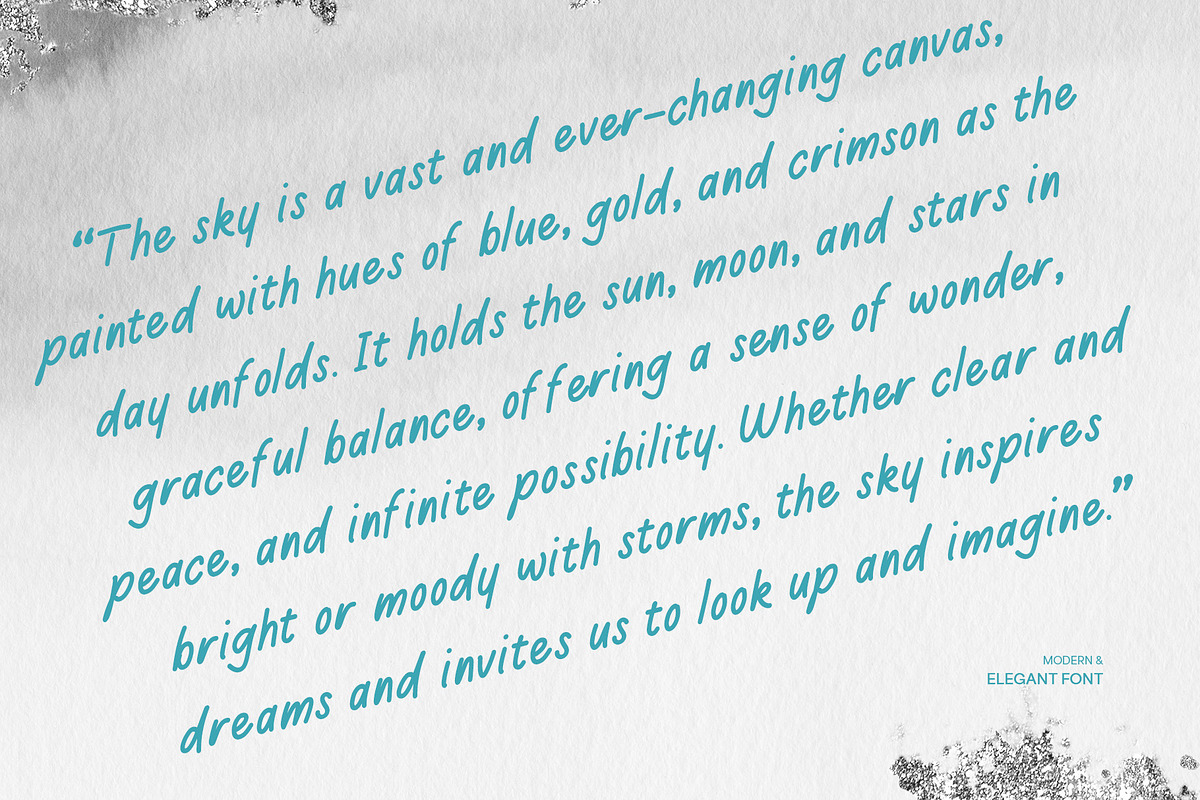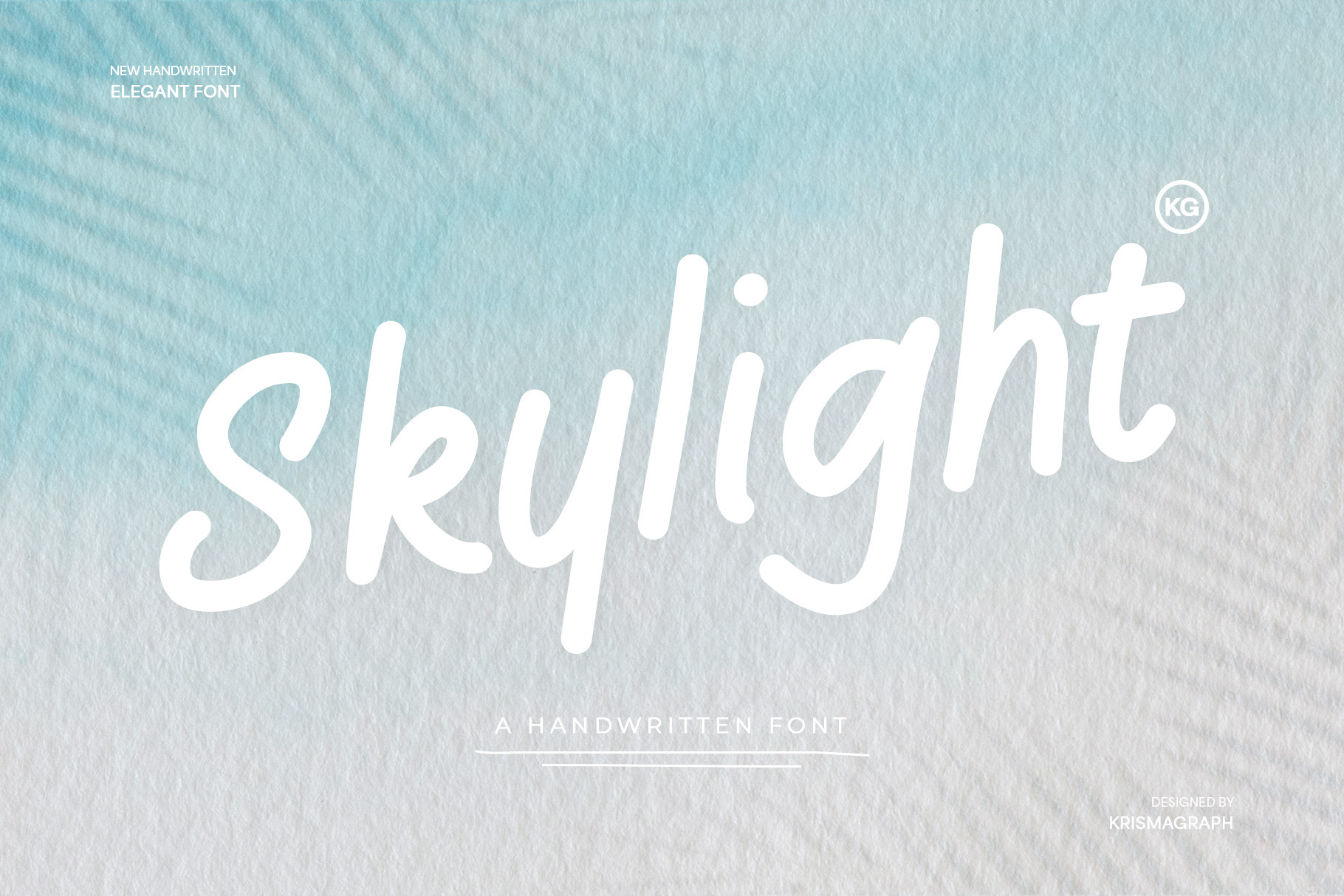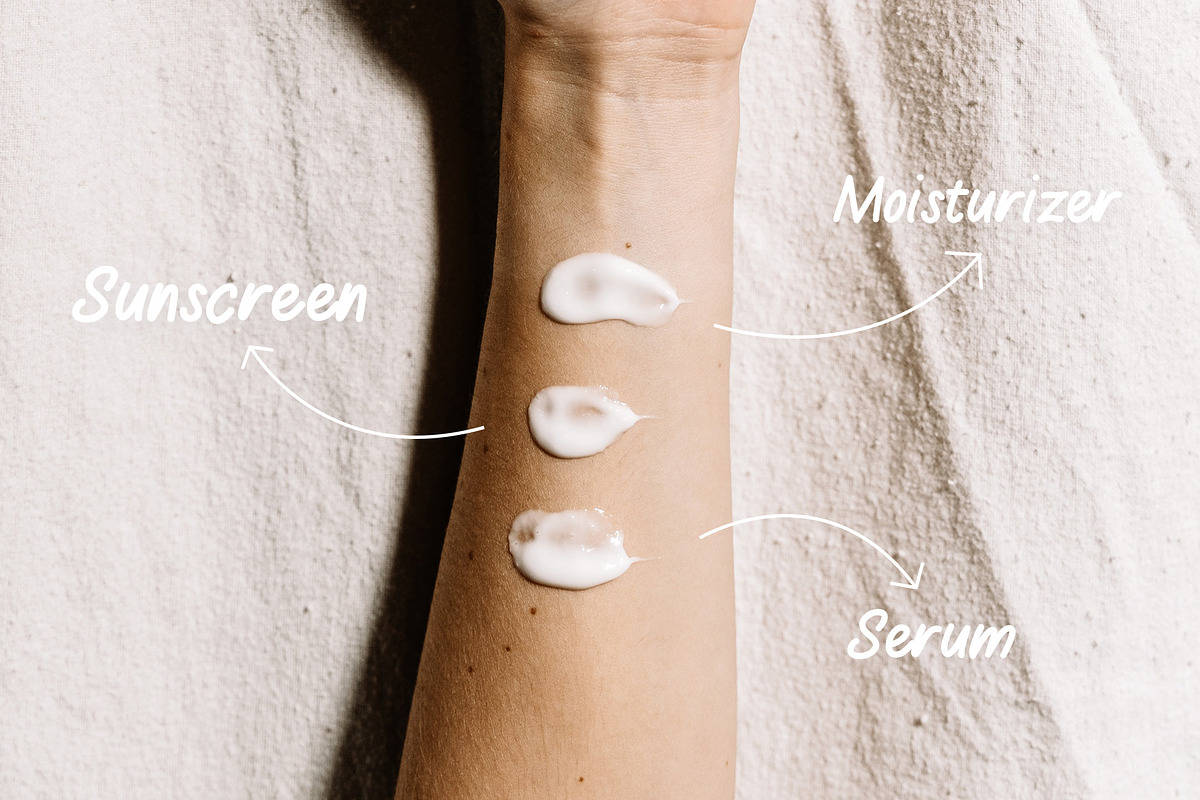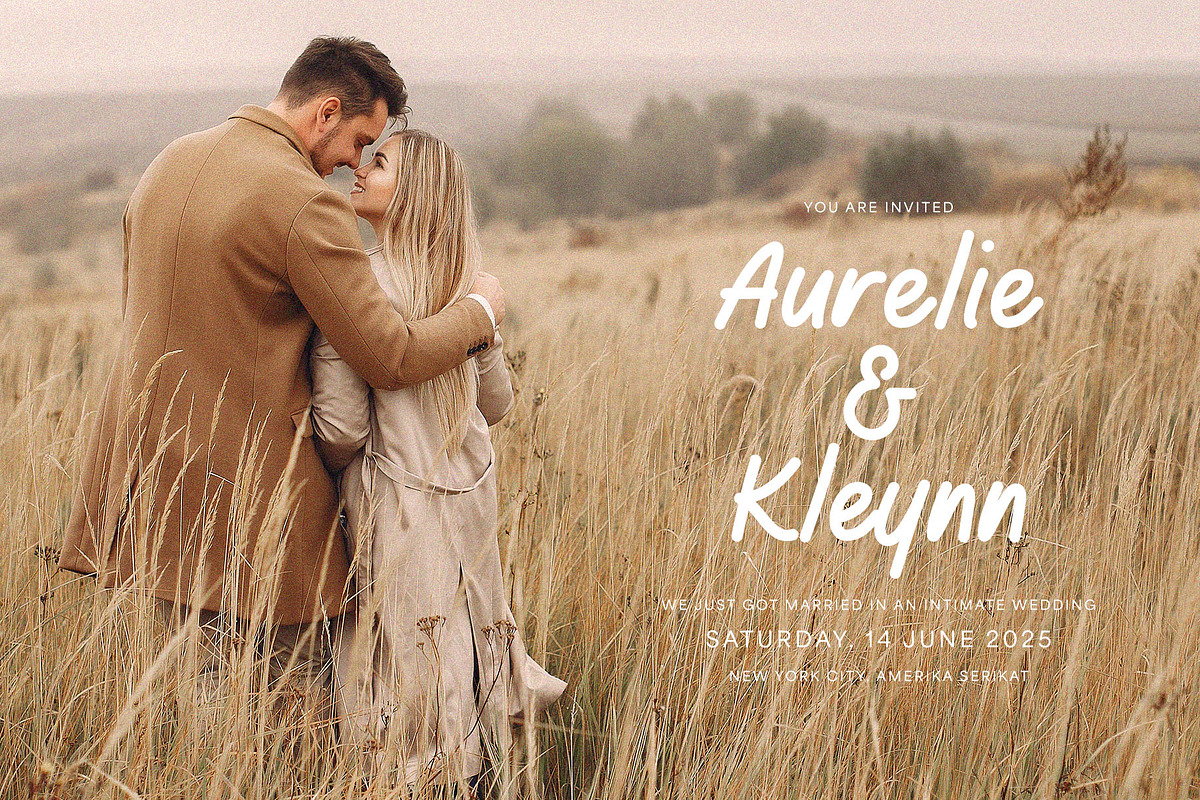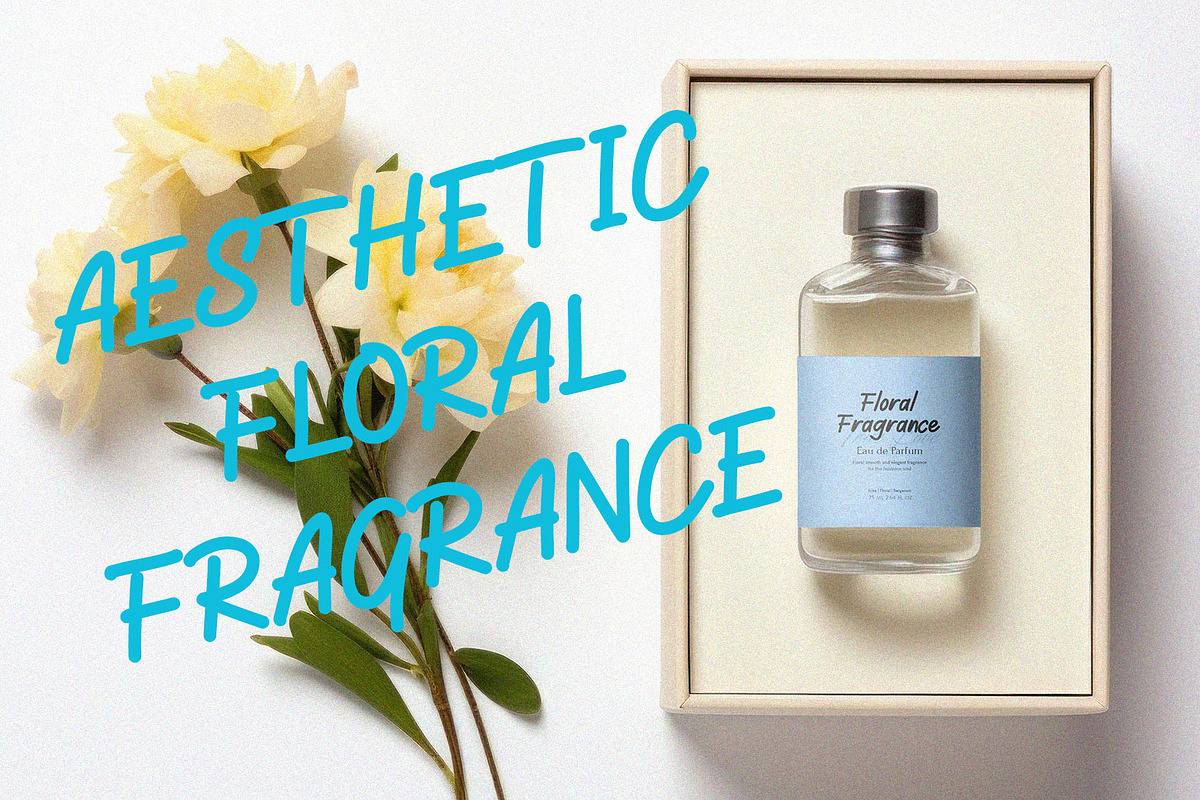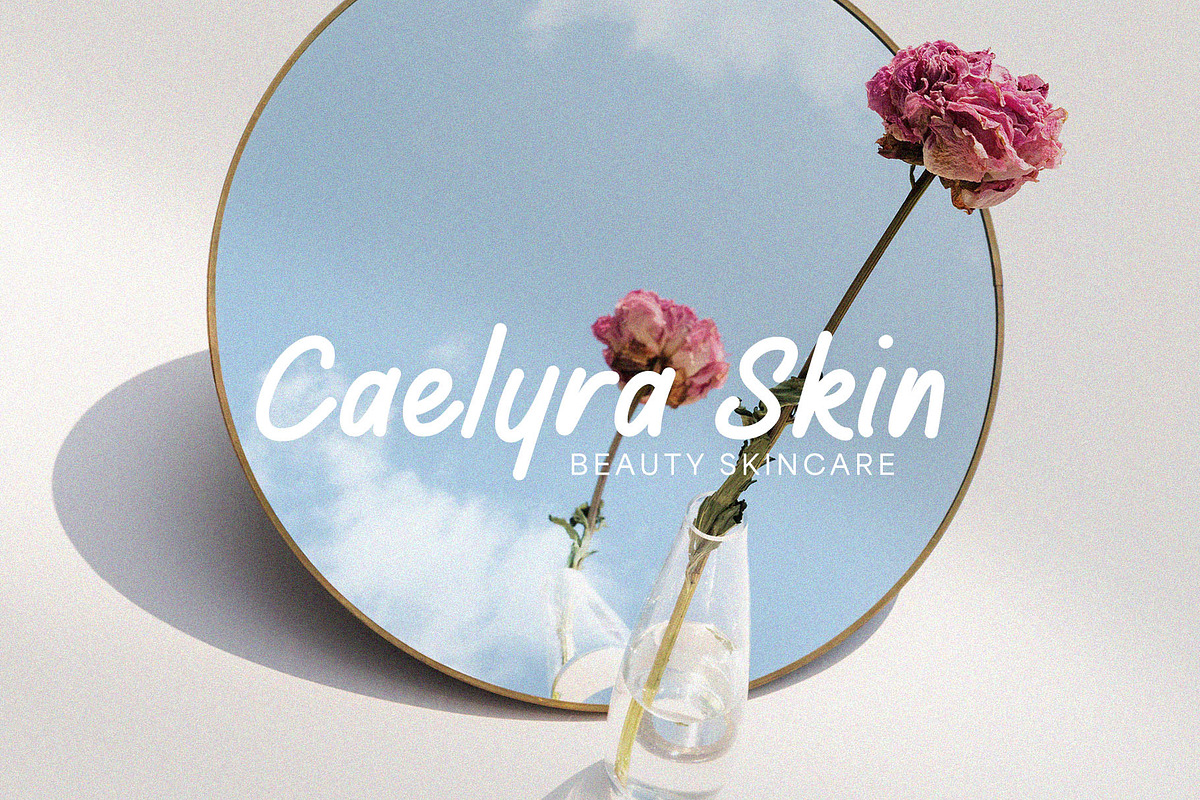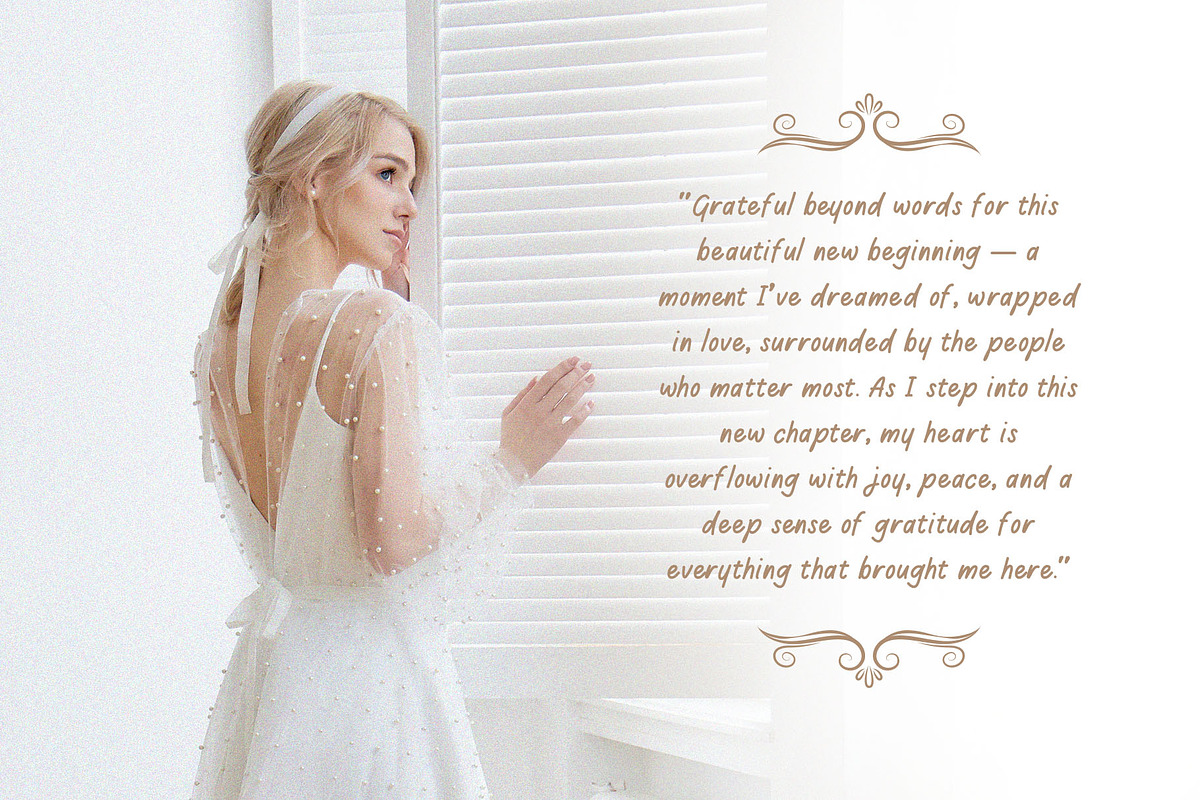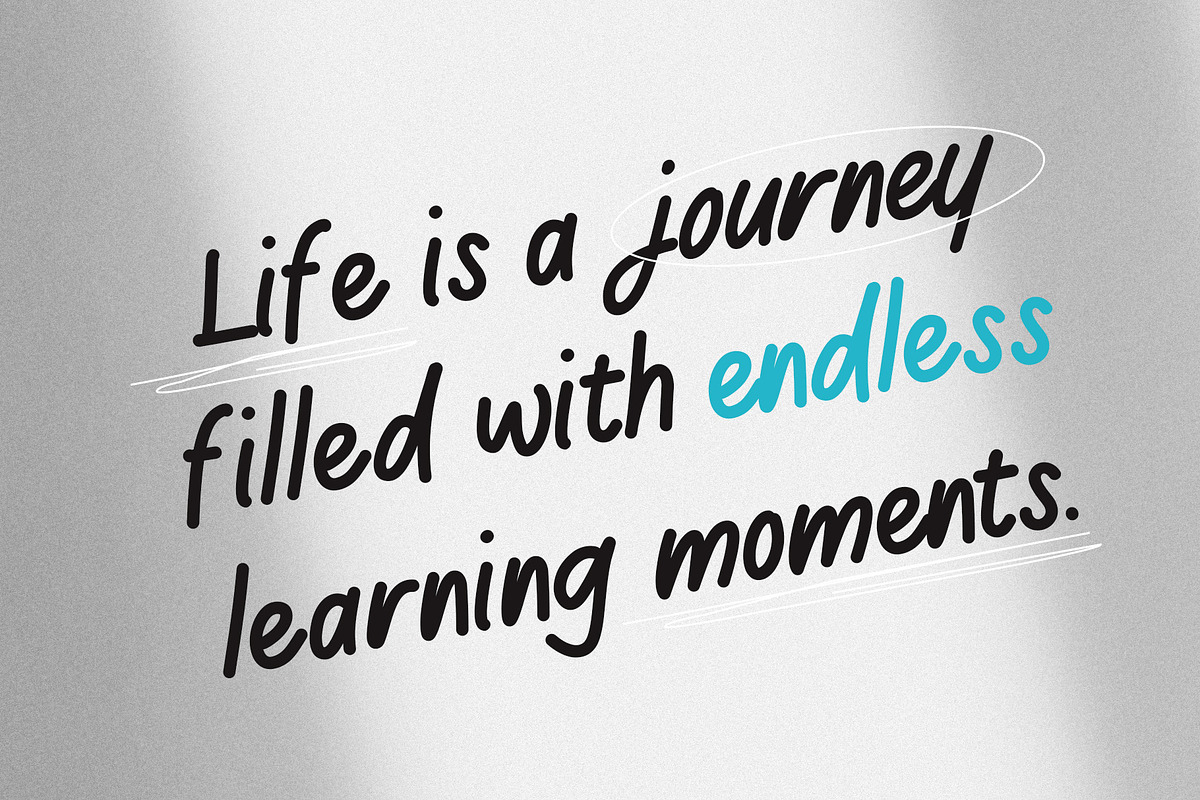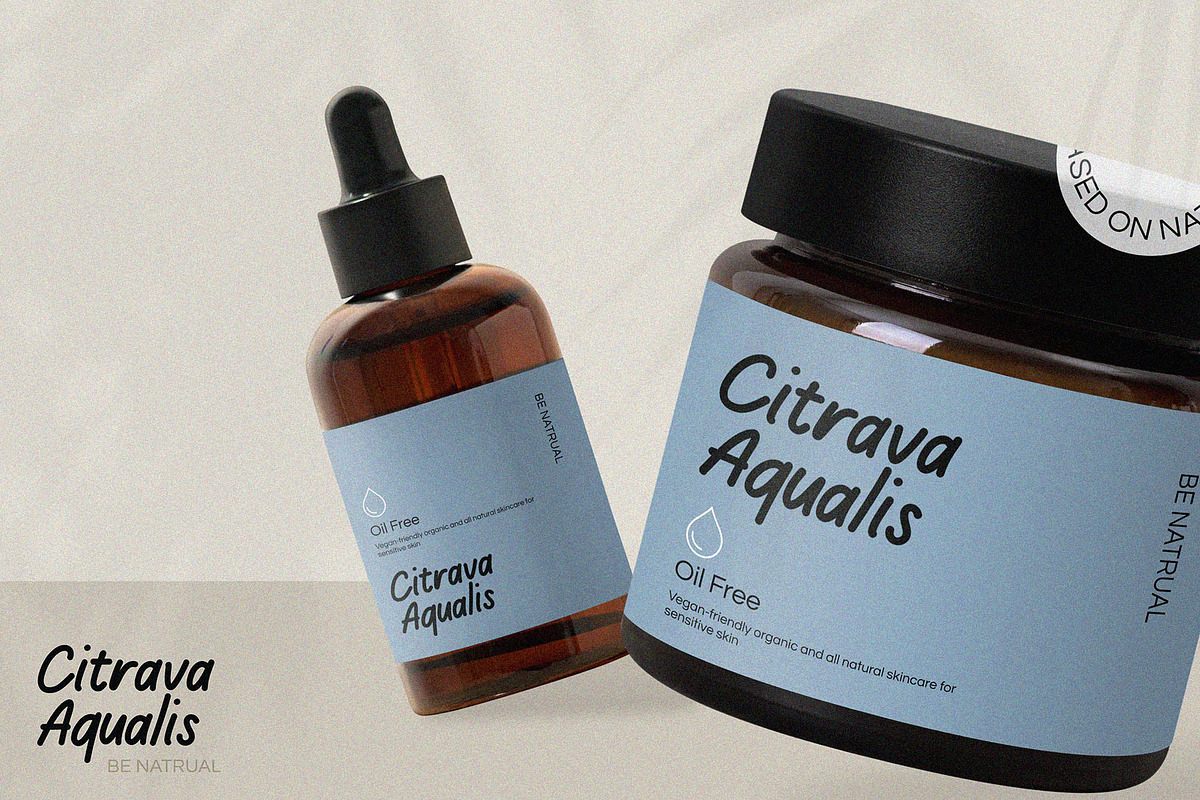
Skylight – A Handwritten Font
Skylight – A Handwritten Font with a Touch of Elegance
Skylight is a charming handwritten font that radiates warmth, softness, and casual sophistication. Designed to evoke the calmness of open skies and sunlit days, this font blends smooth, flowing curves with a friendly personality — perfect for branding, social media graphics, invitations, logos, and editorial projects. Whether you're designing for lifestyle, fashion, or wellness, Skylight adds a personal and elegant handwritten feel to every composition. Let your words shine with Skylight — where style meets serenity.